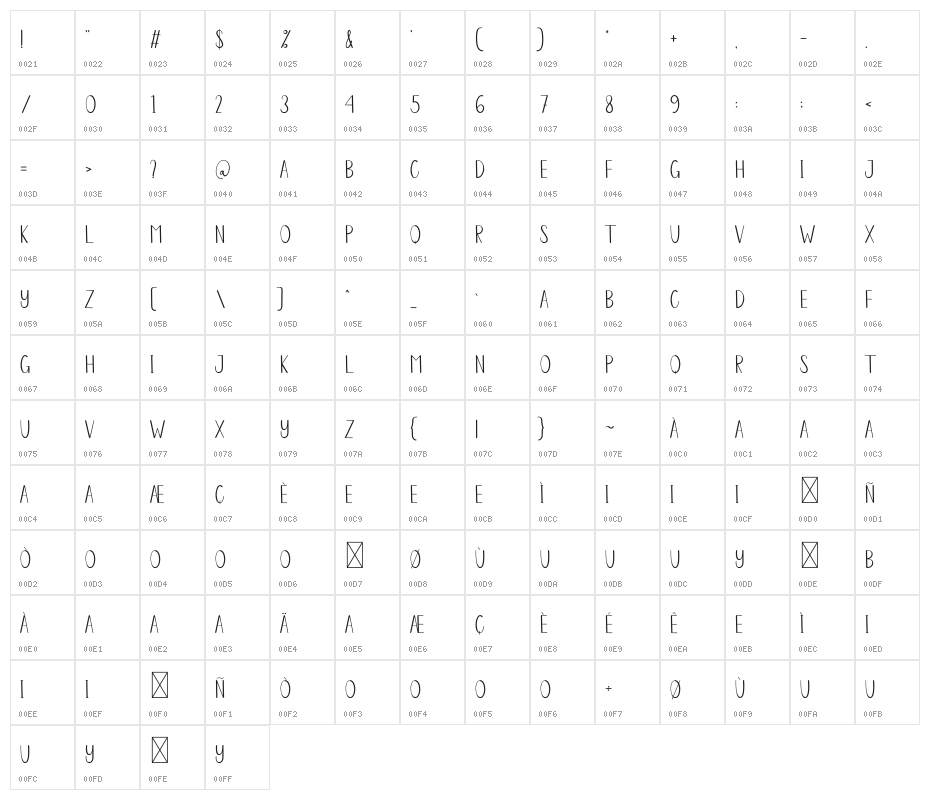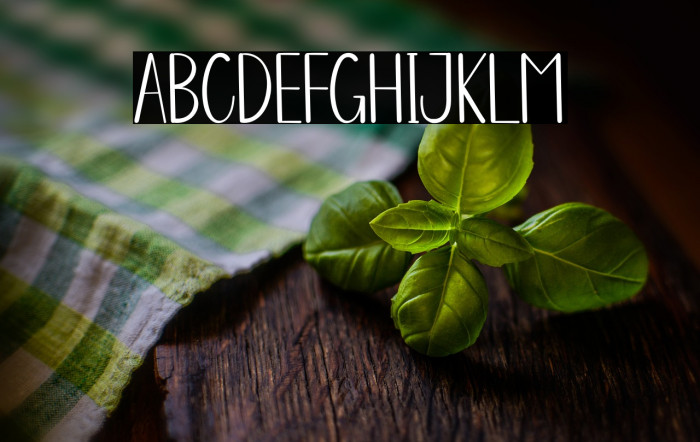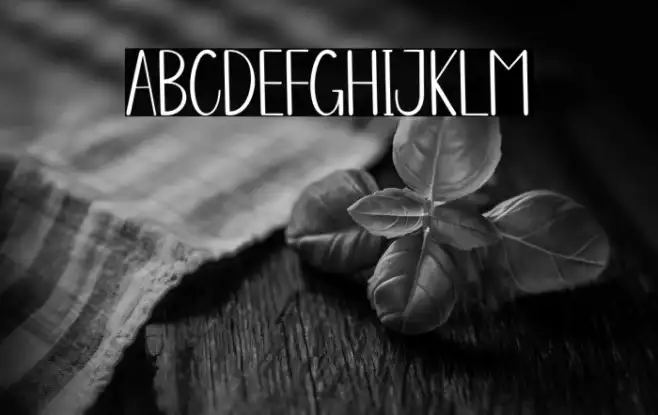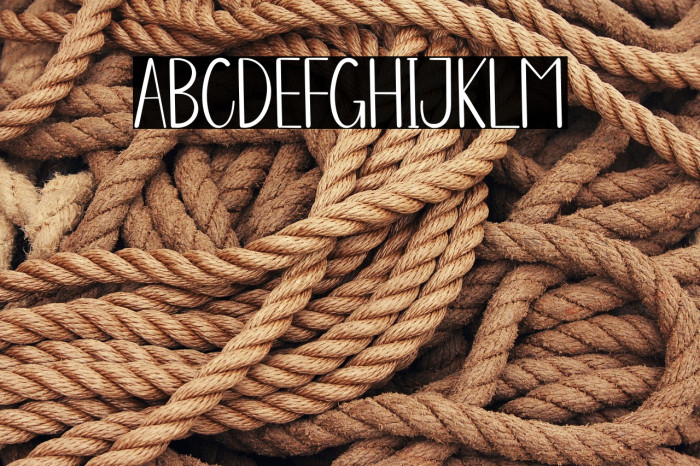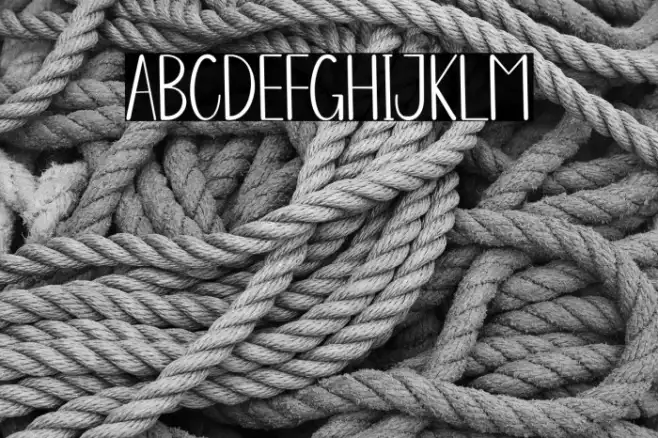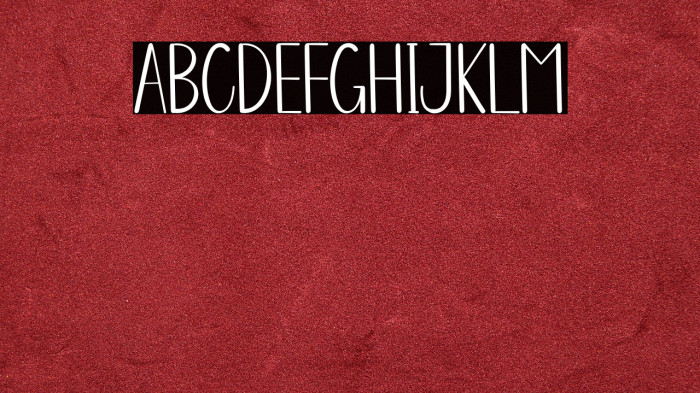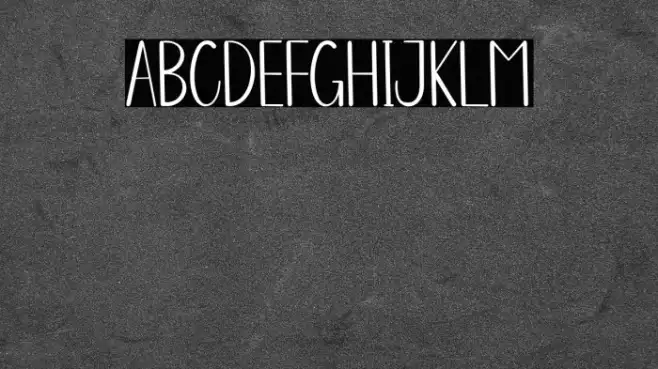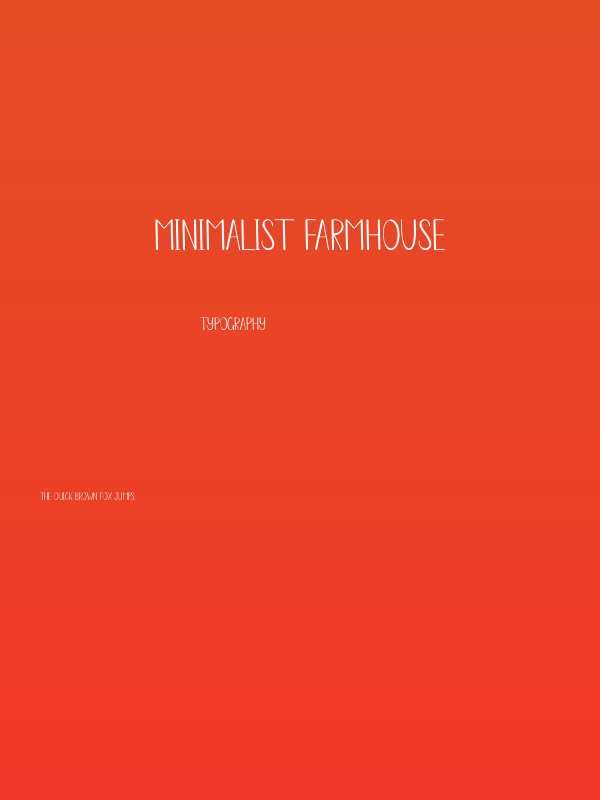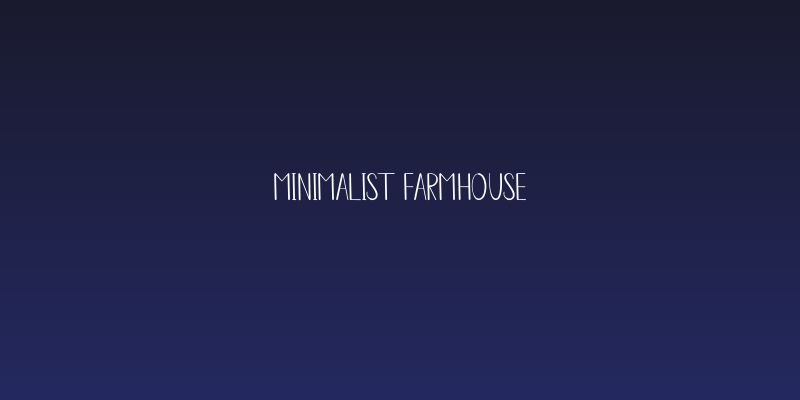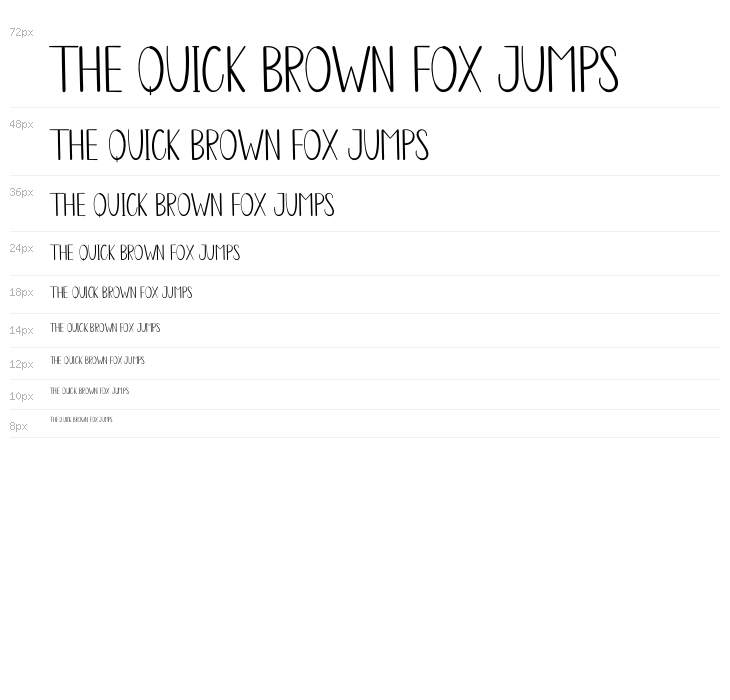
Minimalist Farmhouse Font
This font features a clean and minimalist design with a touch of rustic charm, reminiscent of farmhouse aesthetics. The characters are tall and slender, with a slight hand-drawn quality that adds warmth and personality. The uppercase and lowercase letters maintain a consistent style, with rounded edges and a subtle irregularity that enhances its handcrafted feel. The numerals and special characters are equally well-designed, ensuring versatility across various applications.
| Proposed Projects | Ideal for farmhouse-themed decor, wedding invitations, rustic branding, and DIY projects. |